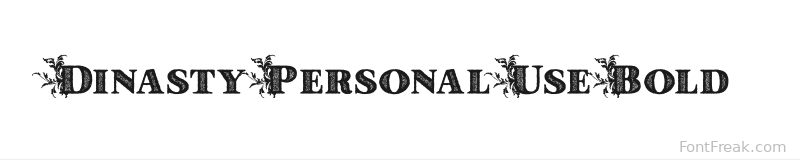
Dinasty Personal Use Bold
Dinasty Personal Use Bold is a striking display font designed by Billy Argel Fonts, perfect for those seeking to make a bold statement in their projects. This font falls into the decorative category, characterized by its unique, artistic flair that captures attention while maintaining readability. The bold stroke weight creates a strong presence, making it suitable for various applications where impact is essential.
Visually, Dinasty Personal Use Bold features a combination of ornate decorative elements and a slightly distressed texture, which adds depth and personality to the letters. The contrast between the thick and thin strokes enhances its visual appeal, while the spacing is optimized for clarity and impact. This font is versatile enough to be used in a variety of design contexts, making it a valuable addition to any designer's toolkit.
Ideal use cases for Dinasty Personal Use Bold include wedding invitations, where its artistic flair can evoke a sense of elegance; movie posters, where bold typography can enhance dramatic storytelling; restaurant menus, adding a unique touch to the dining experience; and promotional materials for events or products that aim to stand out. The font is particularly appealing to graphic designers, small business owners, and content creators who want to capture their audience’s attention effectively.
What sets Dinasty Personal Use Bold apart is its ability to merge creativity with functionality. This font not only offers a unique visual identity but also ensures that your message is communicated clearly. With the Dinasty Personal Use Bold font free download, you can easily incorporate this eye-catching typeface into your projects, enhancing the overall aesthetic while maintaining a professional look. Whether you’re designing for print or digital media, this font is sure to elevate your designs.